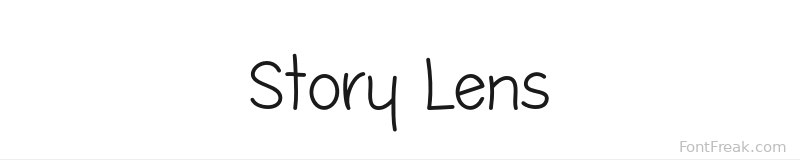
Story Lens
The Story Lens font by MJType is a delightful handwritten typeface that captures the essence of storytelling with its unique charm. This font is characterized by its playful, organic strokes that create a welcoming and friendly appearance. The moderate stroke weight and subtle contrast lend it a balanced feel, making it versatile for various applications. The spacing is thoughtfully designed, ensuring legibility while maintaining a casual aesthetic. The slightly whimsical curves and fluid lines add a touch of artistry, making this font a standout choice for anyone looking to convey warmth and creativity.
Ideal for a range of uses, the Story Lens font excels in crafting memorable wedding invitations that evoke romance and personal touch. It is also perfect for movie posters, where its unique style can draw attention and intrigue. Restaurant menus benefit from its inviting nature, helping to create a cozy atmosphere for diners. Additionally, content creators can use this font in social media graphics and blog headers to enhance engagement and visual appeal. The target audience for this font includes graphic designers, small business owners, and content creators who seek to infuse their projects with a sense of personality and authenticity.
What sets the Story Lens font apart is its ability to blend casual elegance with artistic flair. It is not just a typeface; it's a storytelling tool that invites viewers to connect with the content on a deeper level. For those interested in this exceptional typeface, the Story Lens font free download offers an opportunity to incorporate its unique character into various creative projects, ensuring that your designs stand out in a crowded marketplace.